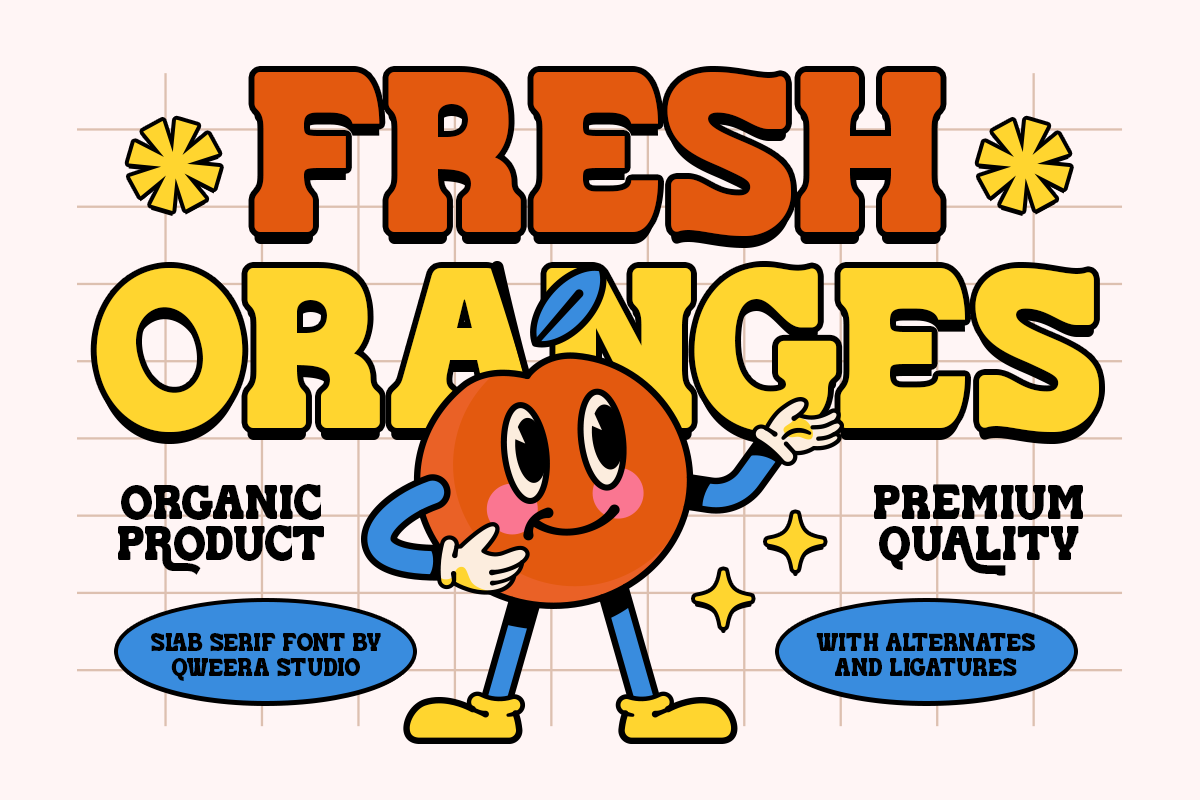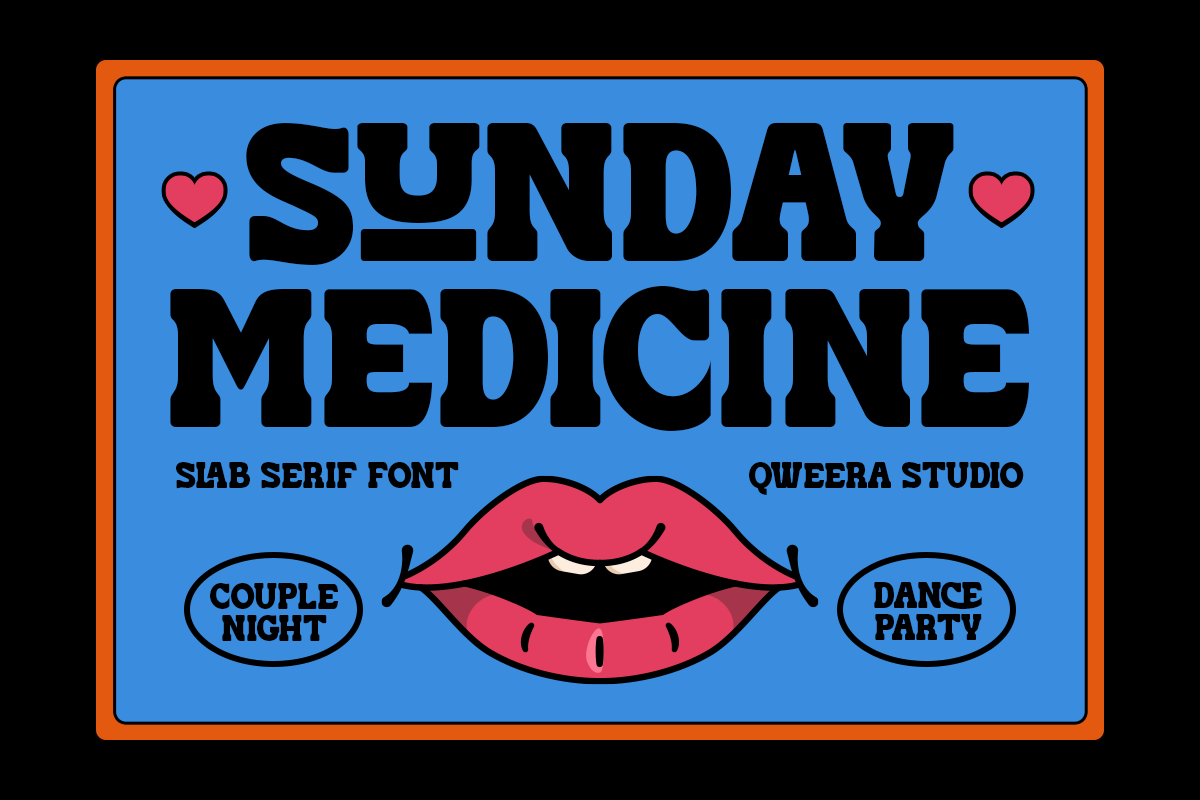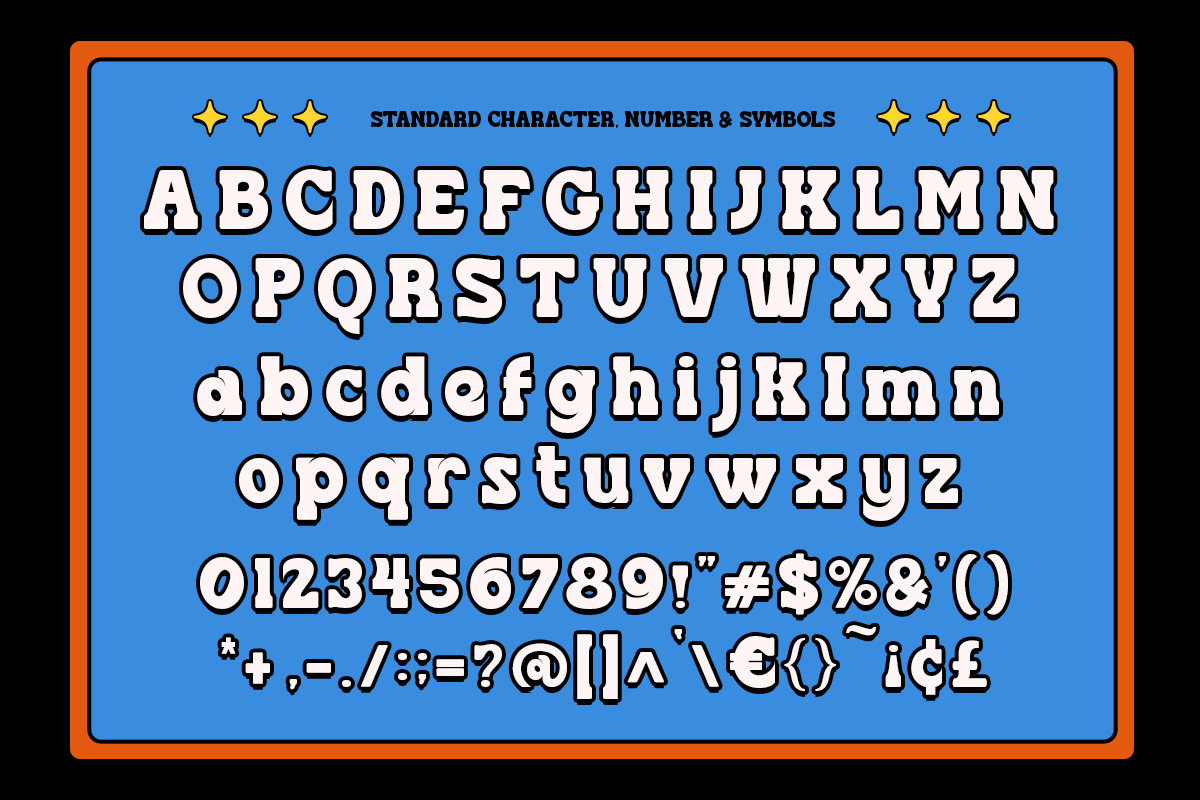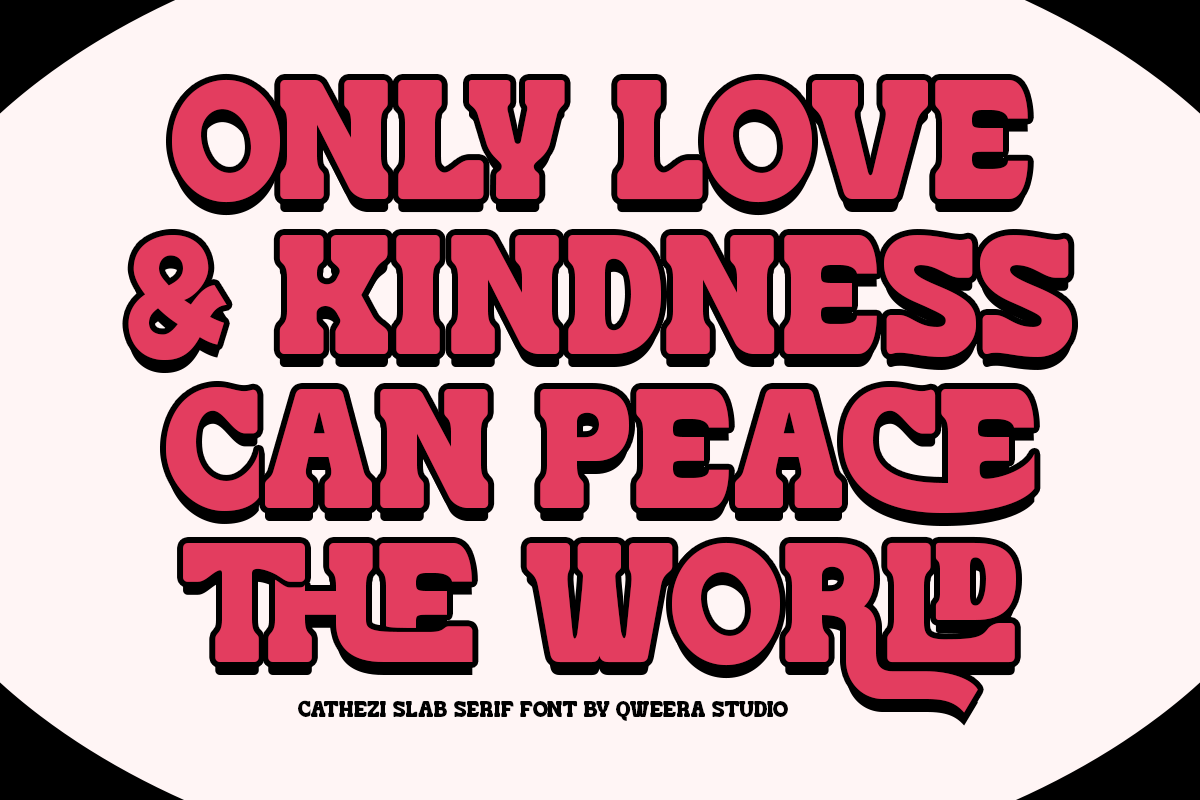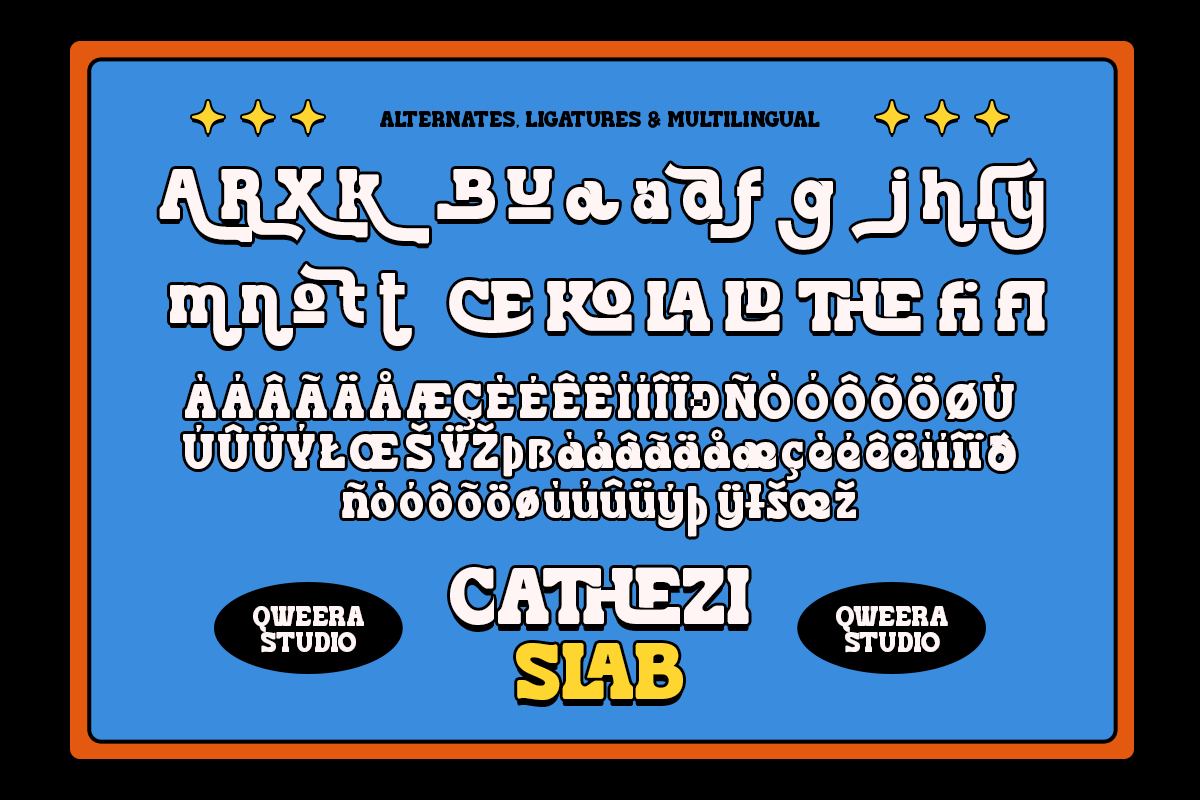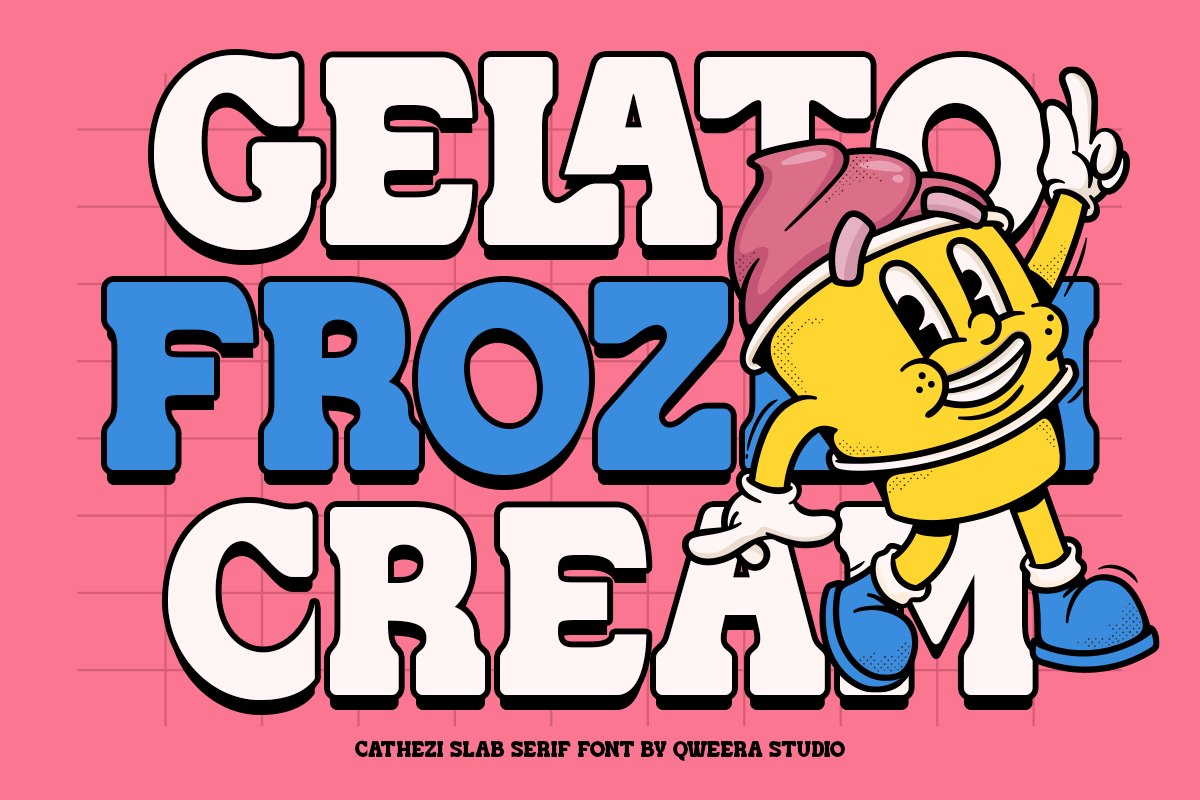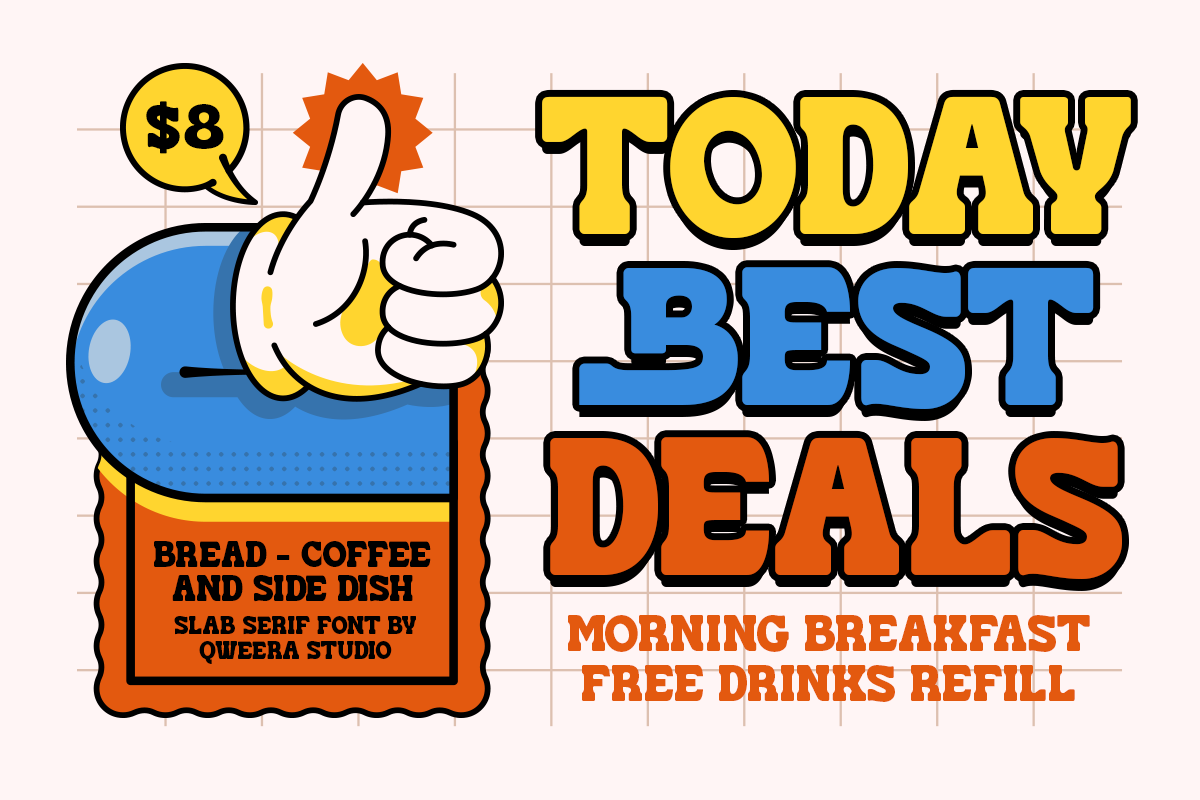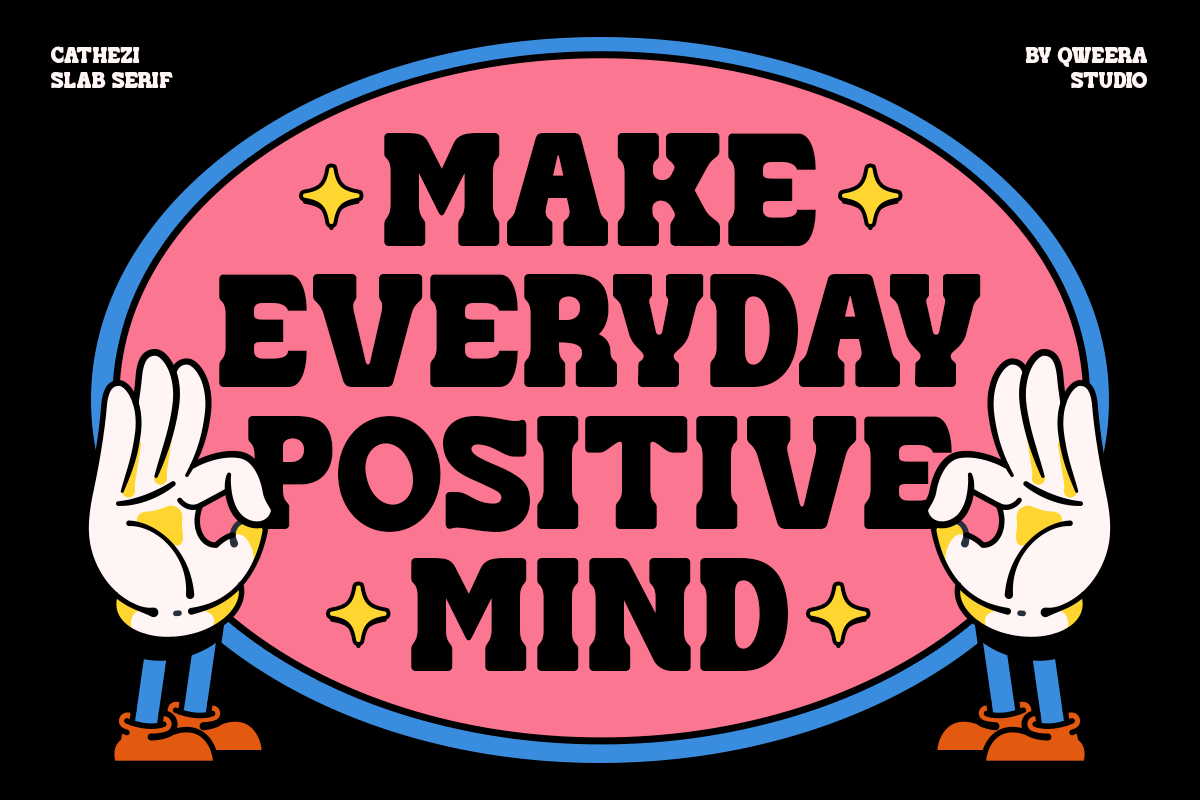
Cathezi - Retro Slab Serif
Cathezi Slab – Retro Slab Serif Font
Cathezi Slab is a bold and stylish retro slab serif font designed to make your designs stand out. Featuring unique alternates and ligatures, this typeface provides flexibility and ease of use, allowing you to create customized layouts effortlessly.
Perfect for posters, magazines, and print designs, Cathezi Slab brings a cool, vintage vibe with a modern edge. Its strong character ensures your projects leave a lasting impression while maintaining a professional and creative aesthetic.
Elevate your designs with the bold charm of Cathezi Slab, a font crafted to inspire creativity and deliver standout results!
- Opentype features ( ligature, alternate )
Multilingual character supports : (Afrikaans, Albanian, Catalan, Croatian, Czech, Danish, Dutch, English, Estonian, Finnish, French, German, Hungarian, Icelandic, Italian, Lithuanian, Maltese, Norwegian, Polish, Portuguese, Slovenian, Spanish, Swedish, Turkish, Zulu)